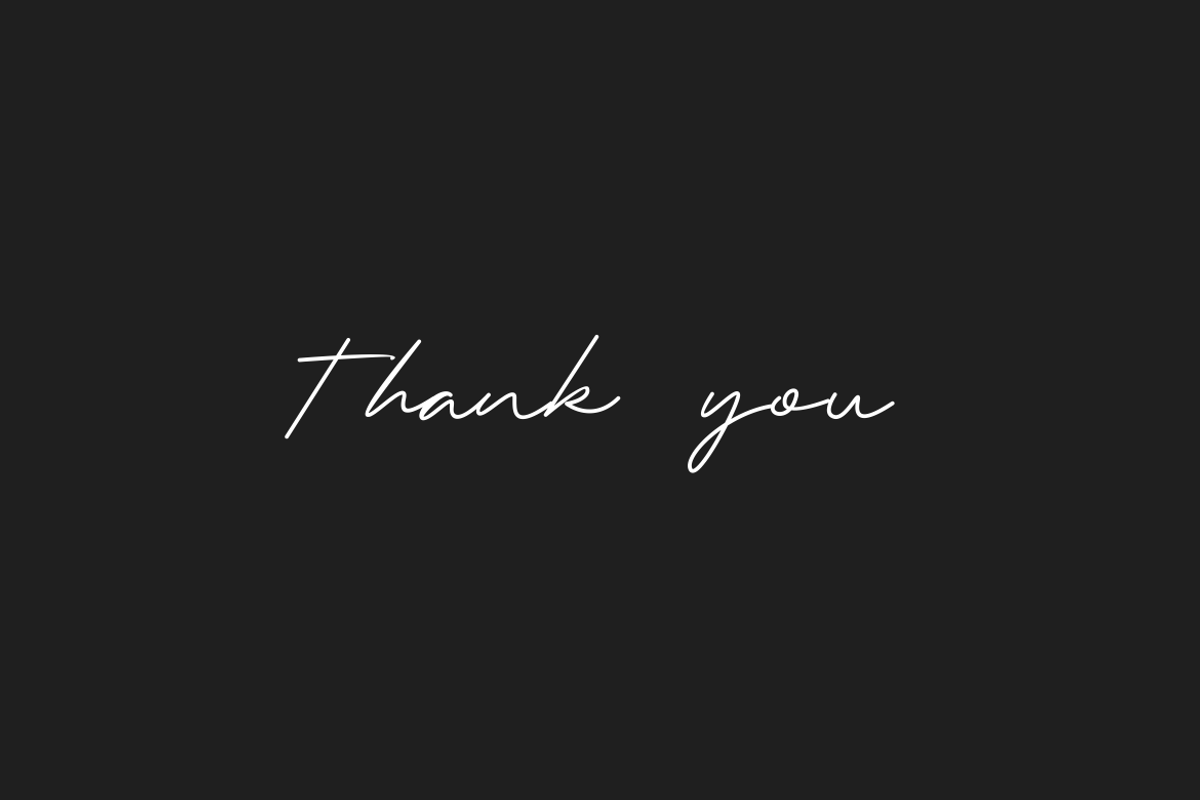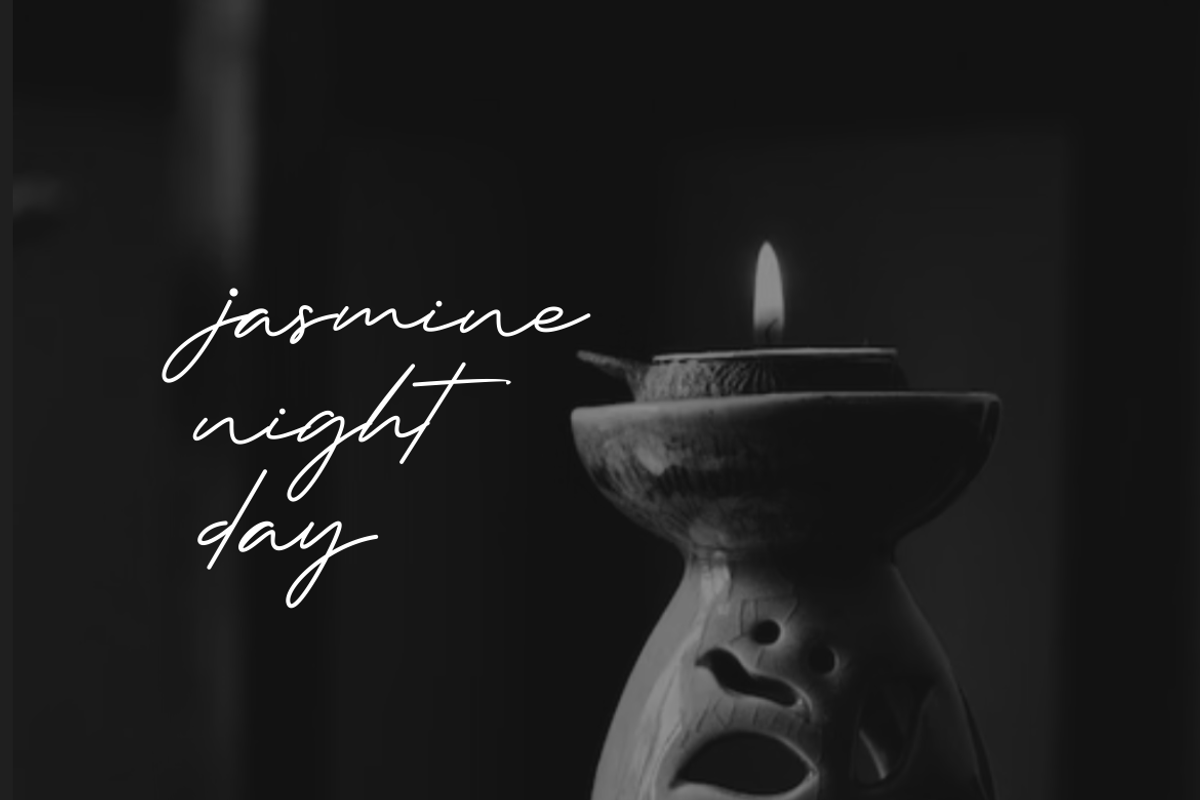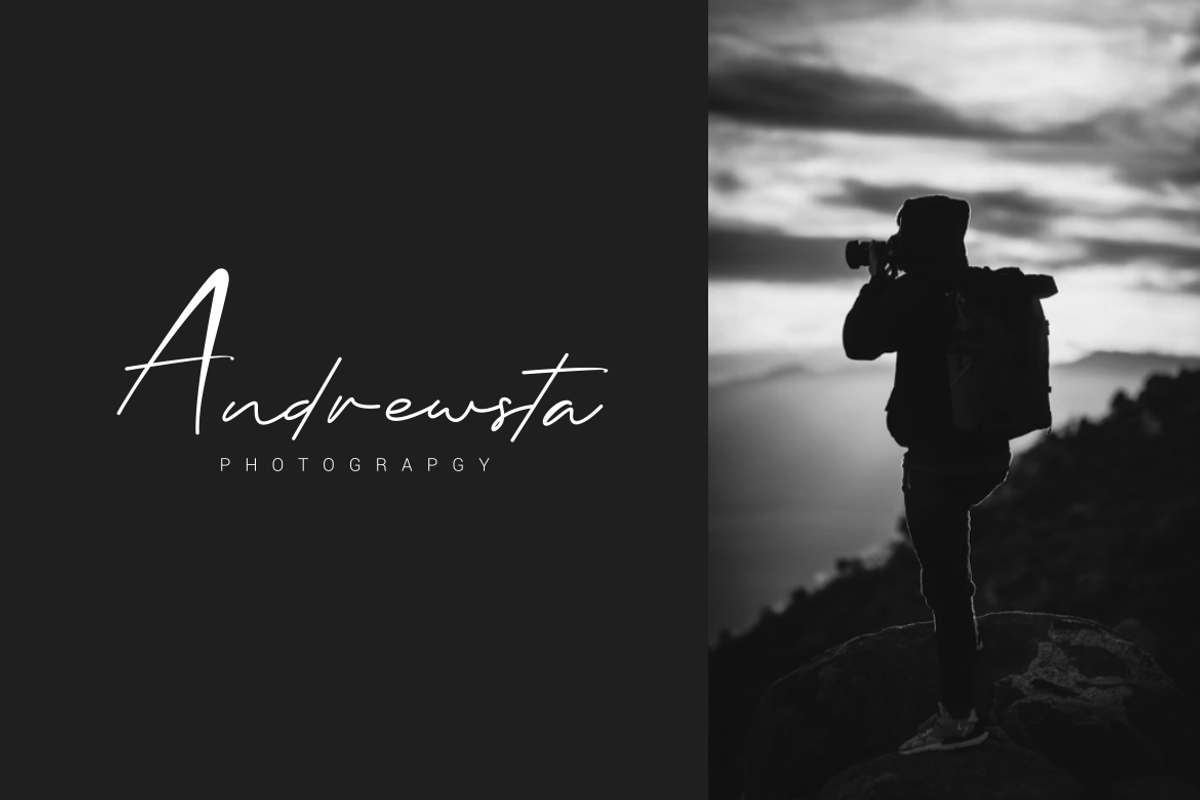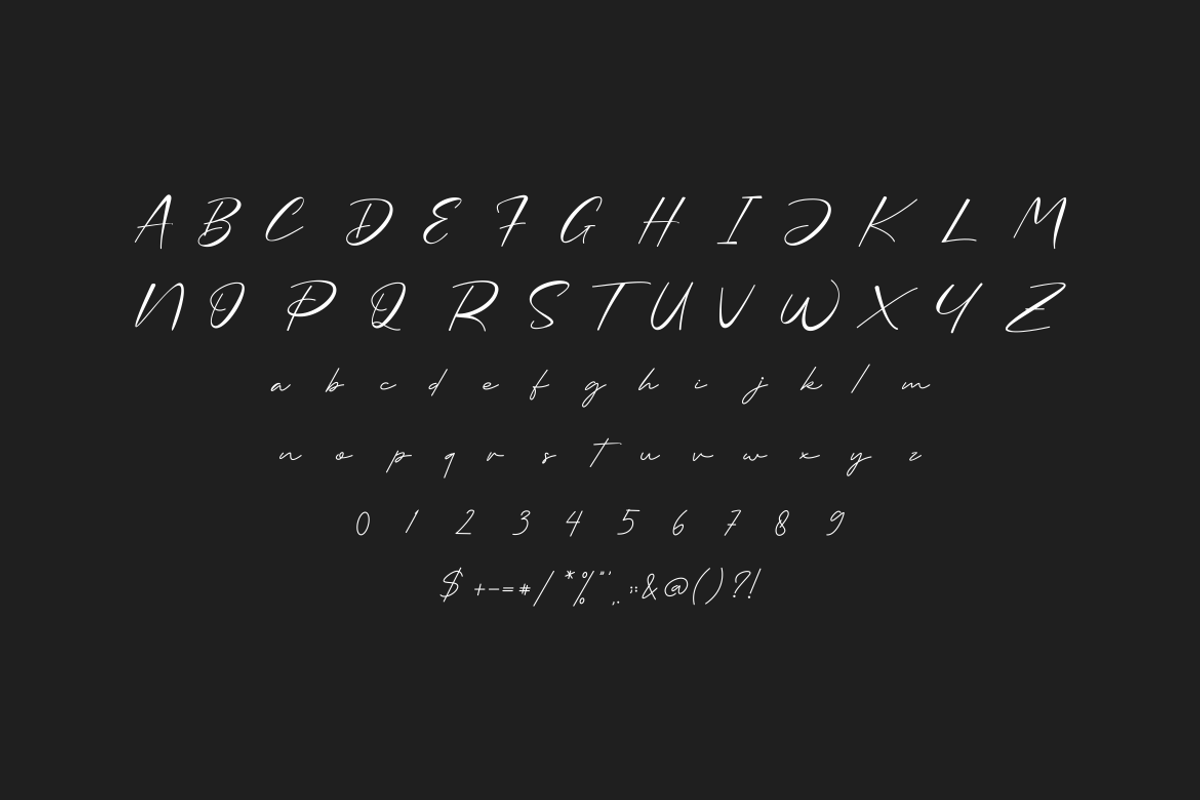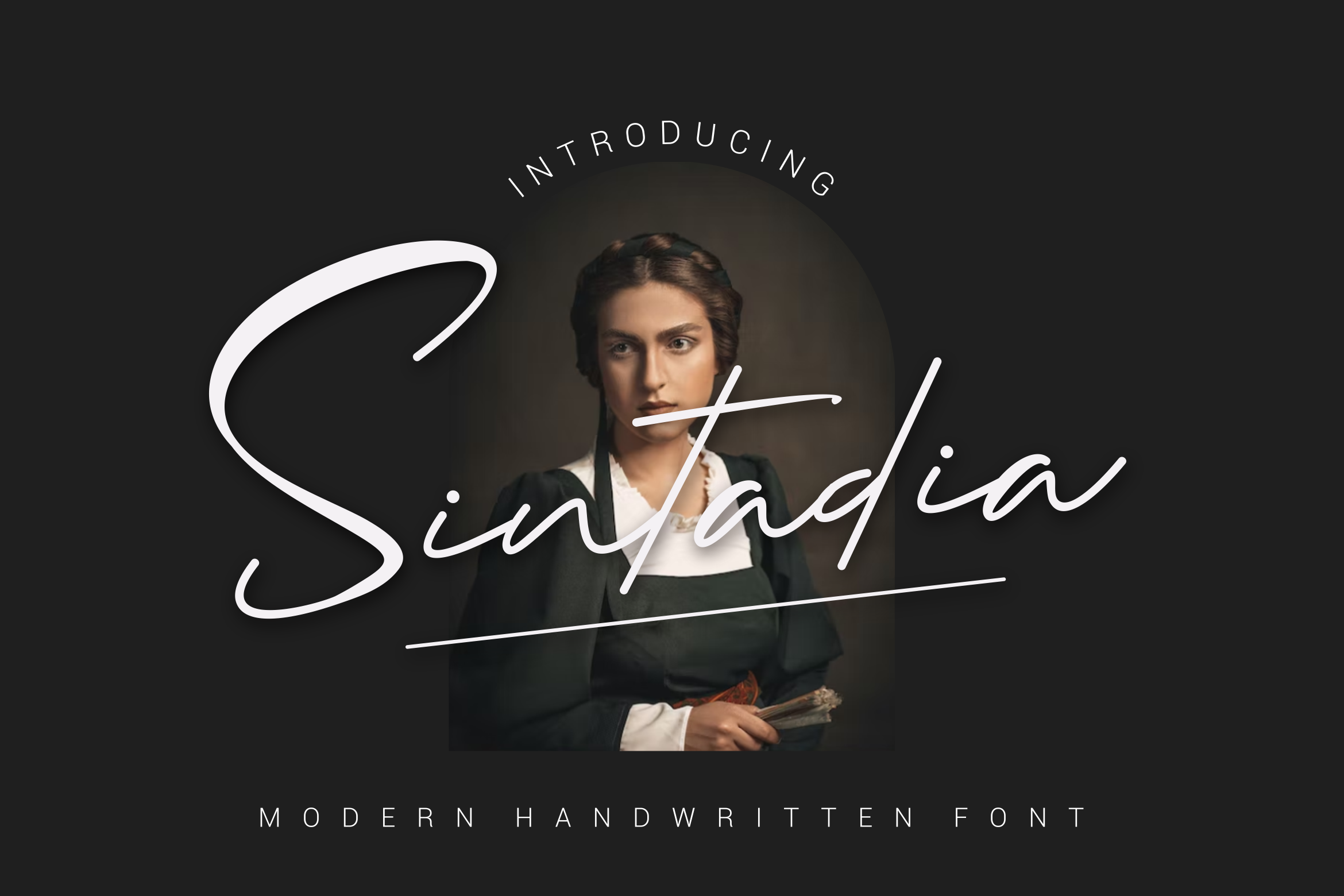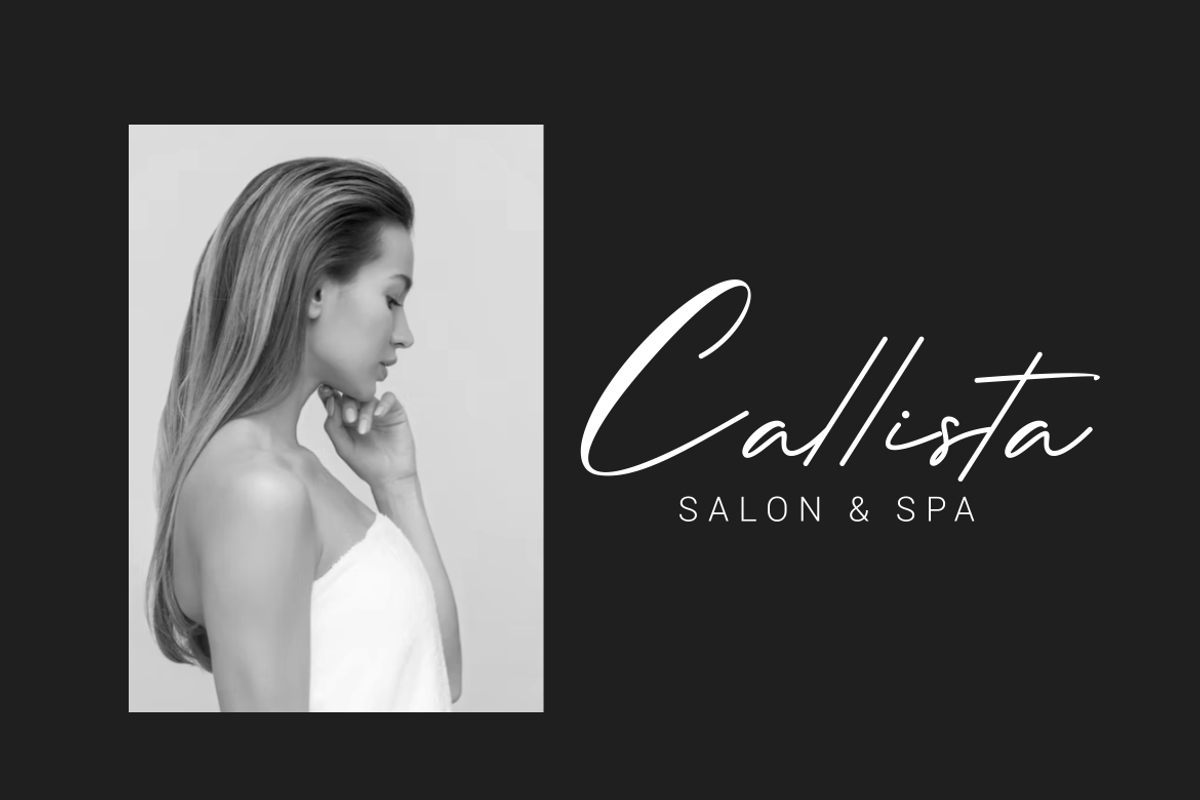
Sintadia Font
Introducing our new product Sintadia Font - Modern Font
Sintadia Font - Modern Font is a bold and authentic display font. The font is suitable for any branding project like logo, esport, and many more. outstanding in a wide range of contexts.